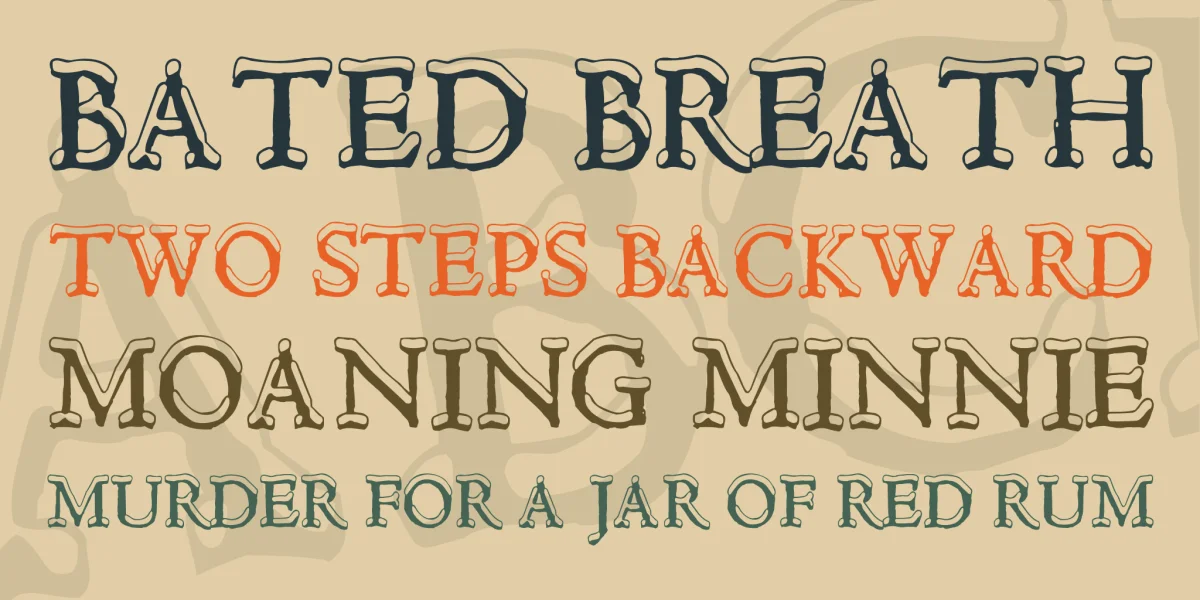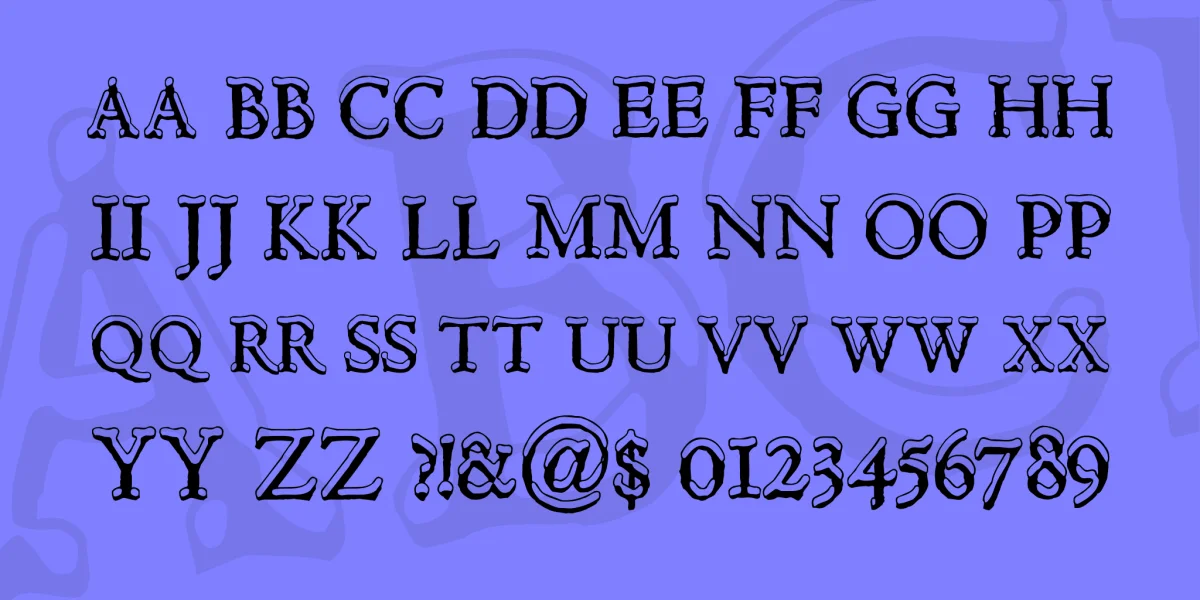
While mentally cataloguing the font-variant clichés I haven't explored yet (there are only a few left!) it occurred to me that I've never dabbled in the "snow-top" genre, despite being happily obsessed with all things wintry. So, I dove into it enthusiastically, playing with rough clumps of snow, smooth drifts of snow, piled-high stacks of snow and so on. This is one of the more useful of the early experiments, a new Hultog variant (all-caps, but otherwise a full-keyboard set).